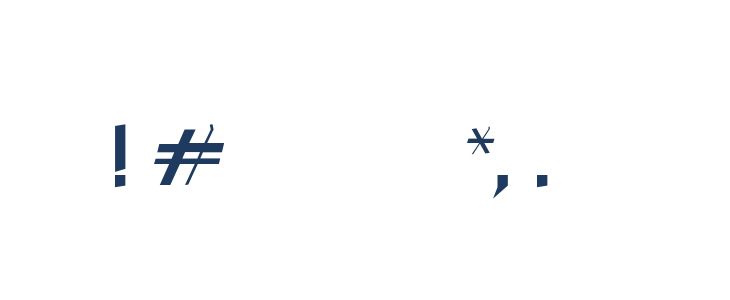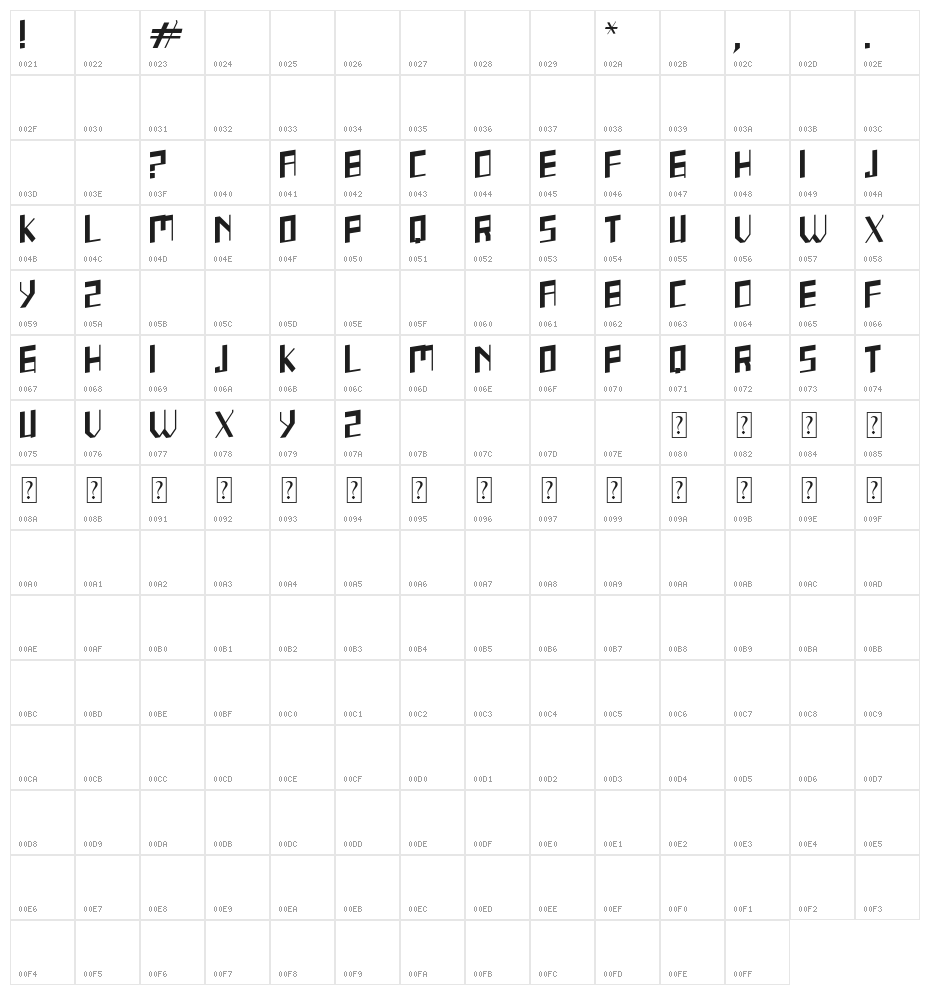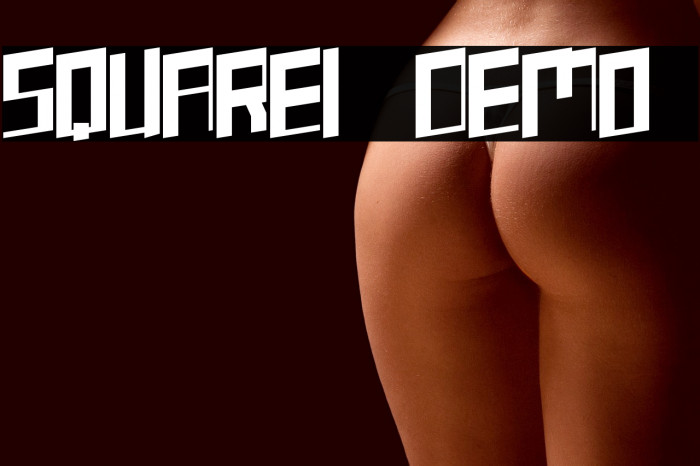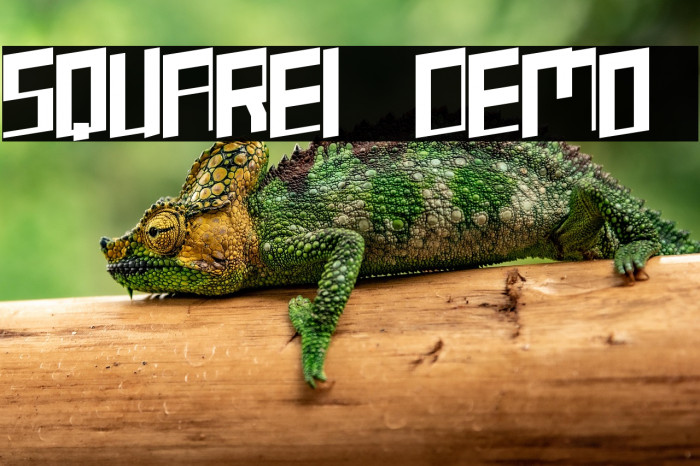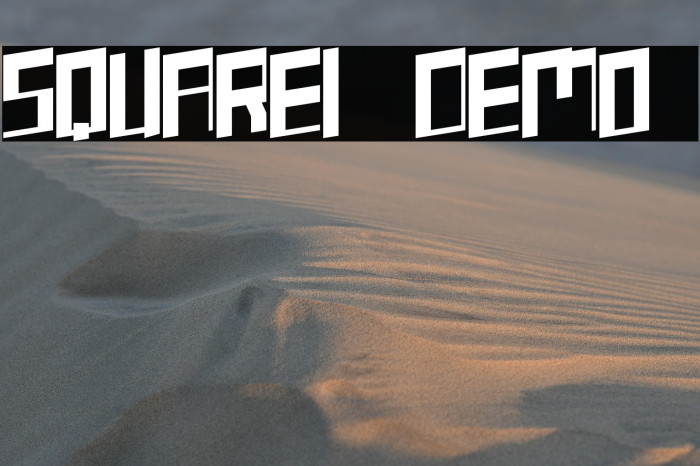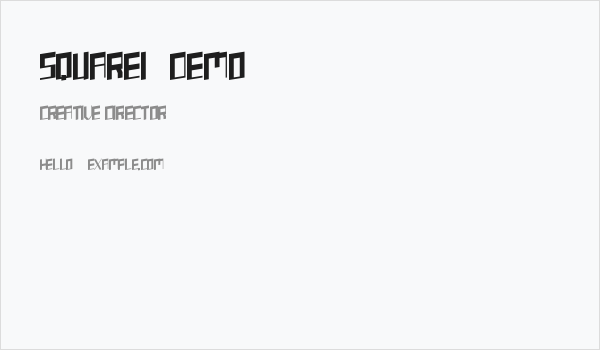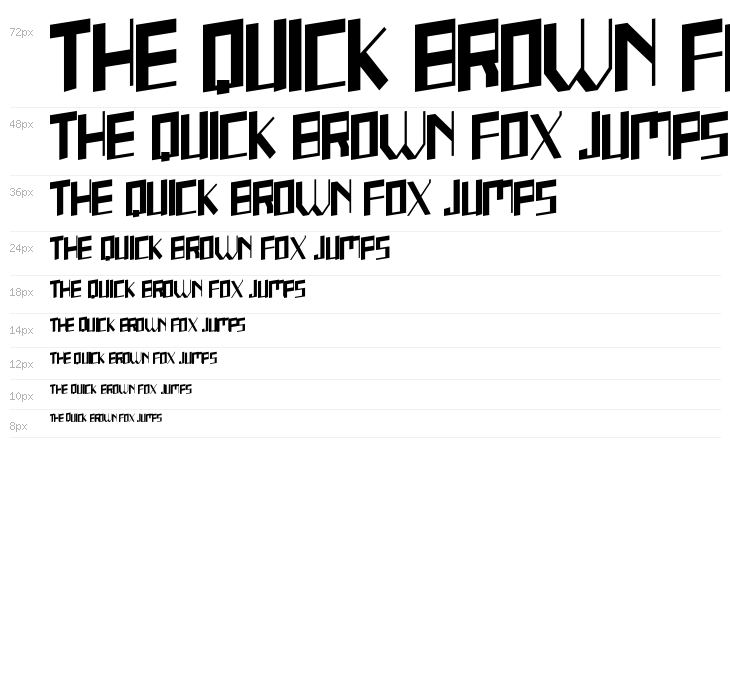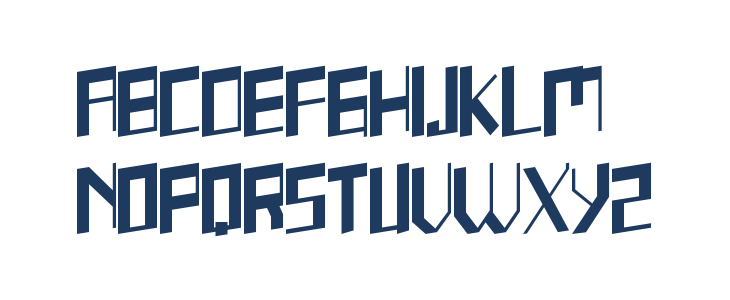
SQUAREI [demo] Font
SQUAREI [demo] Description
This font features a bold, geometric design with a modern and edgy aesthetic. The characters are constructed with sharp angles and straight lines, giving it a futuristic and digital feel. The uppercase letters are uniform in height, while the lowercase letters maintain a consistent style, enhancing readability. The numbers and special characters follow the same angular design, ensuring a cohesive look across all elements. This font's unique style makes it stand out, ideal for projects that require a strong visual impact.
| Proposed Projects | Ideal for digital media, tech branding, video game titles, and futuristic designs. |